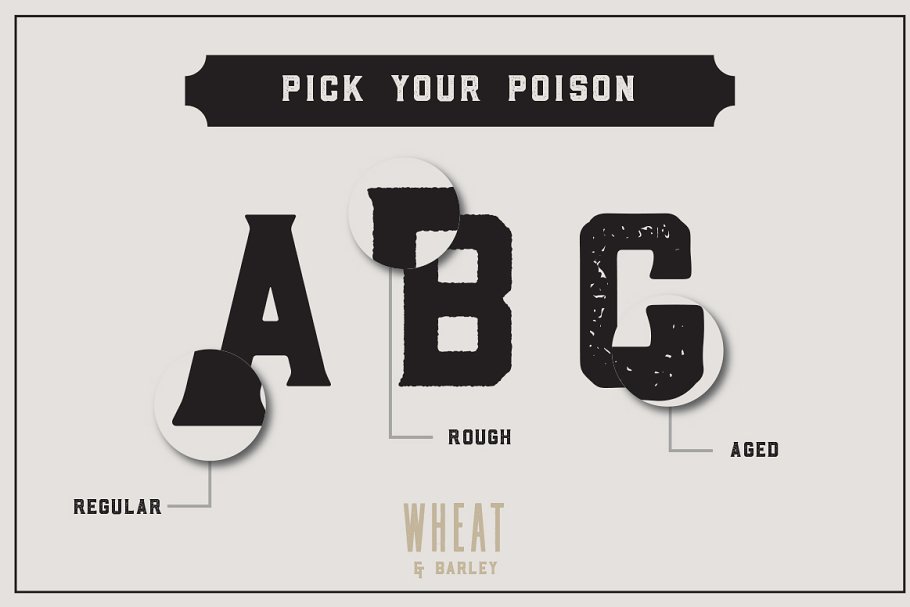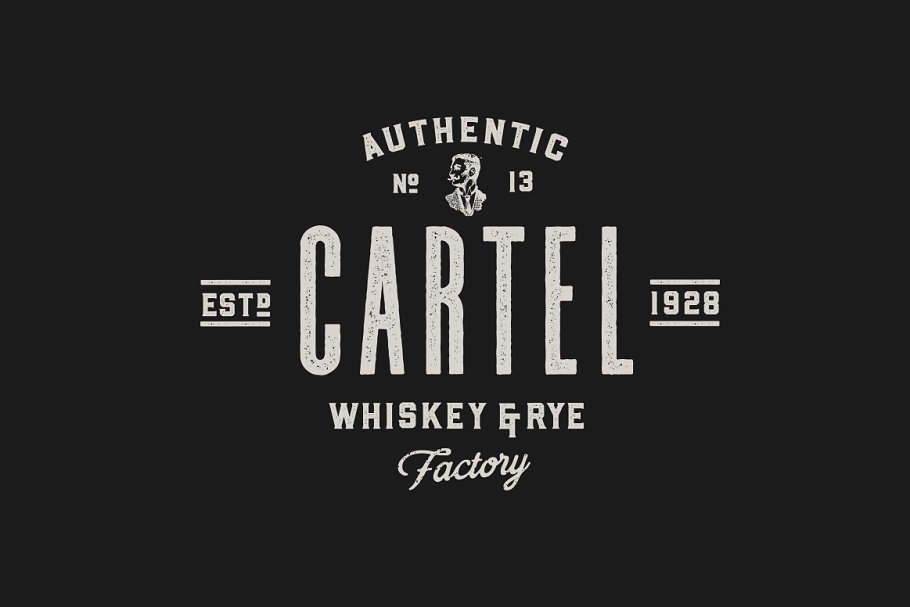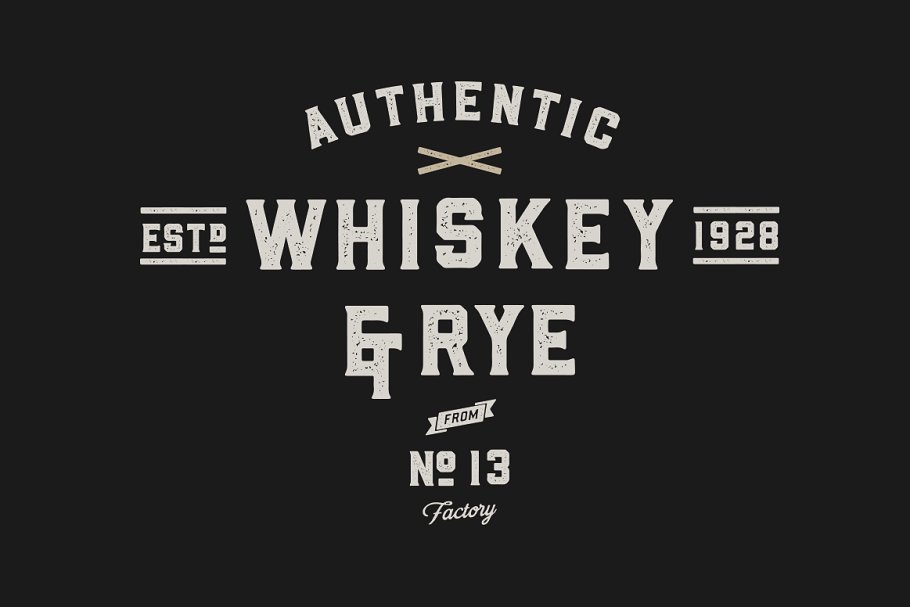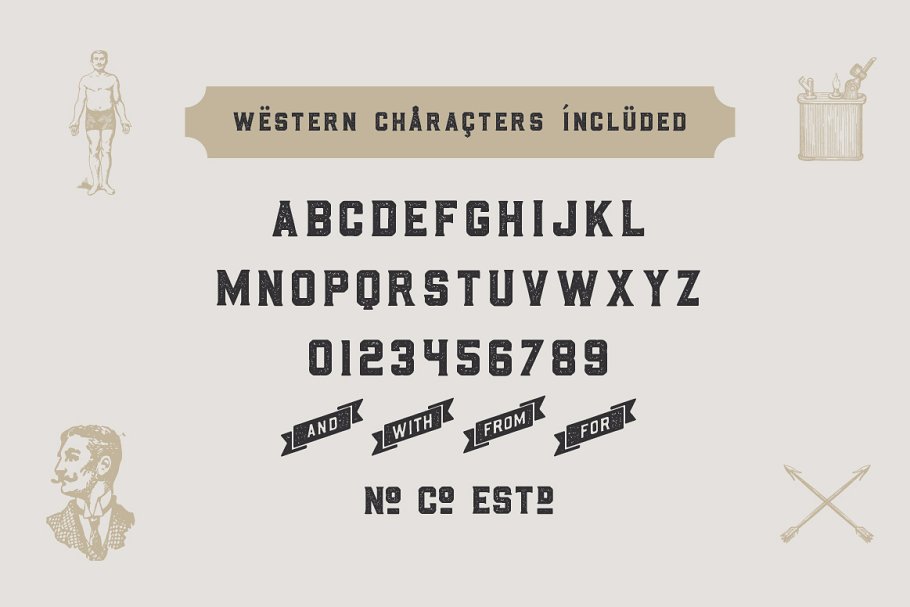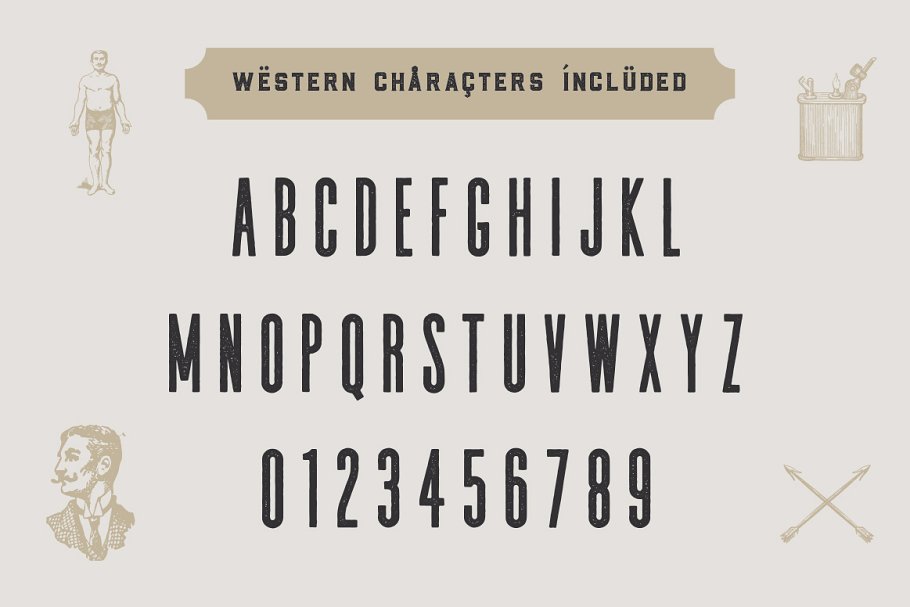
About the The Whiskey Collection Font
The Whiskey Font CollectionThis collection isn’t complete without The Artisan Collection, don’t miss it: https://crmrkt, com/vqRVdPThe Whiskey Font Collection is a type pairing of Wheat & Barley, These two typefaces were literally made for eachother, They work together to give you that perfect vintage label you’ve been designing, These are perfect for Logos, Advertising, Apparel Design, Labels, Signage, Etc
The 2 Typefaces come in 3 different styles; Regular, Rough, Aged (Distressed Letterpress Look), Wheat & Barley come with Western European characters, Barley also has a few added extras such as and, from, for and with inside of ribbons, alongside No